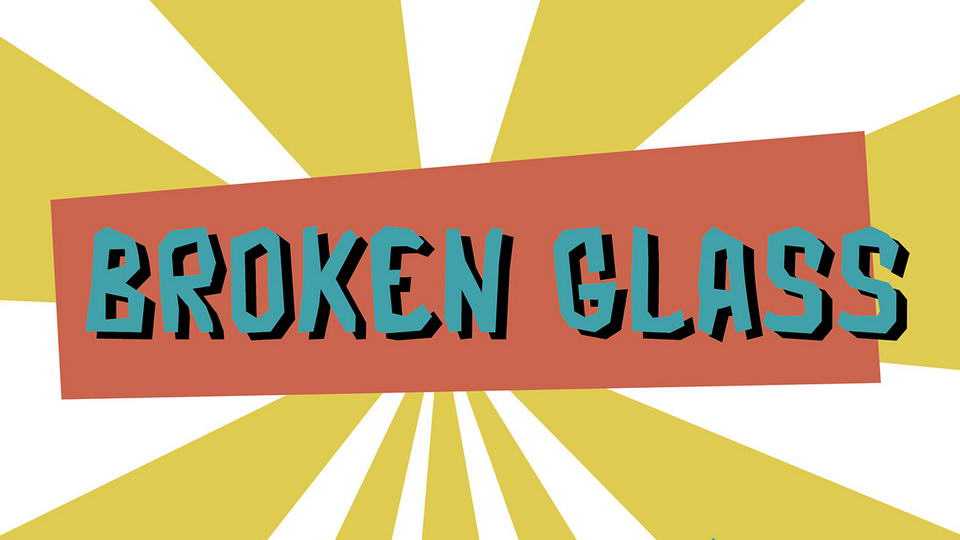
Download Broken Glass font, a fun cut out display typeface. Broken Glass font fits great for unformal designs, posters, banners, kids designs, games and book covers and other artworks.